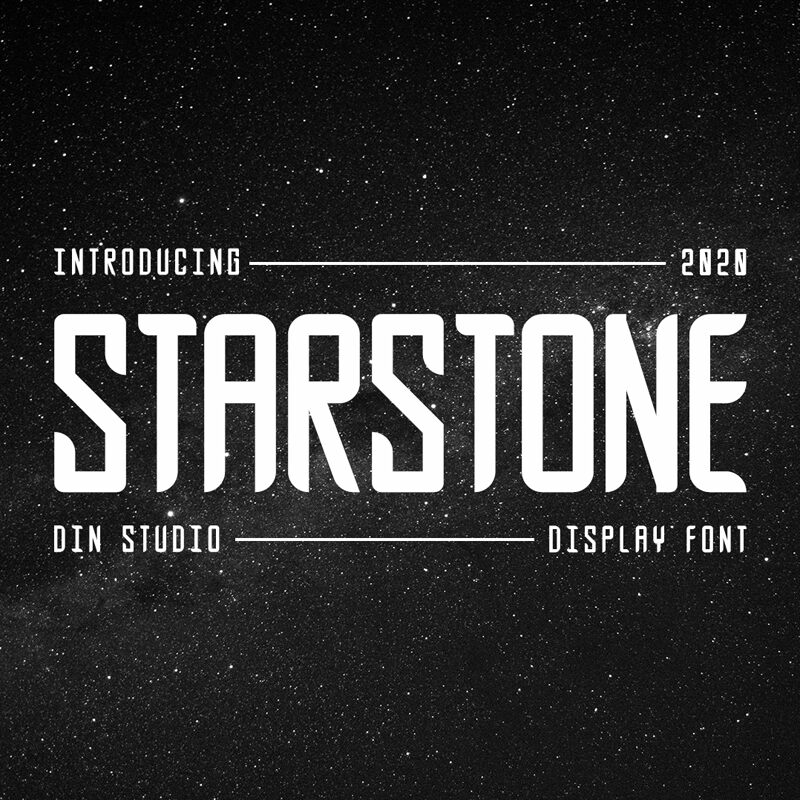
Starstone, designed by Din Studio, is a cutting-edge display font that exudes a techno vibe. Its semi-light weight and extra-condensed width create a unique look that's perfect for futuristic designs. Whether you're designing a website for a tech company or creating packaging for an energy drink, Starstone will give your project an edgy and modern feel. Make your headlines stand out with this bold and innovative typeface, suitable for any project that requires a touch of high-tech sophistication. Add some Starstone to your creative arsenal today!
Starstone A Display Font
This typeface with modern style looks very interesting for loads of different projects and promotions. It is perfect to be used on any projects likes website, for your social media branding, pinterest banners, printed products, and more, especially that needs outers space touch.